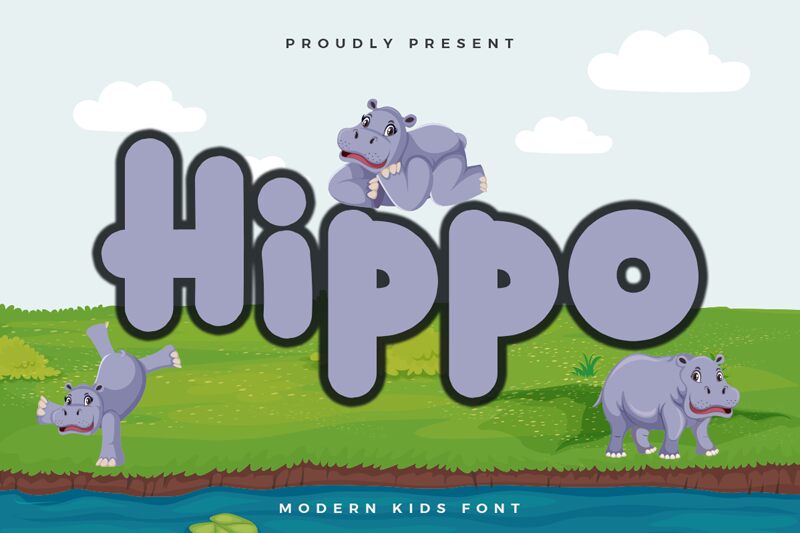
Hippo font by Kong Font is a display typeface in a bold cartoon style. The letters burst with energy with their rounded, bubbly bodies that give off a modern feel. With its smooth curves, achieve a friendly and approachable appearance in any of your projects.